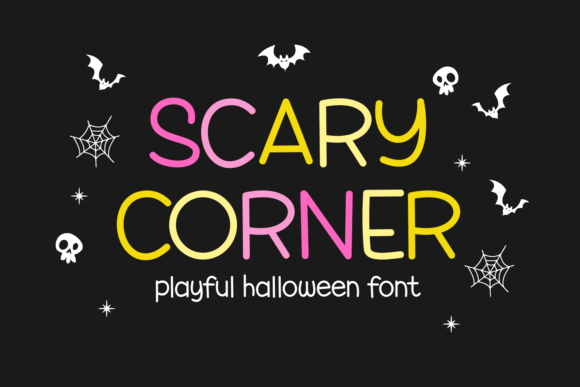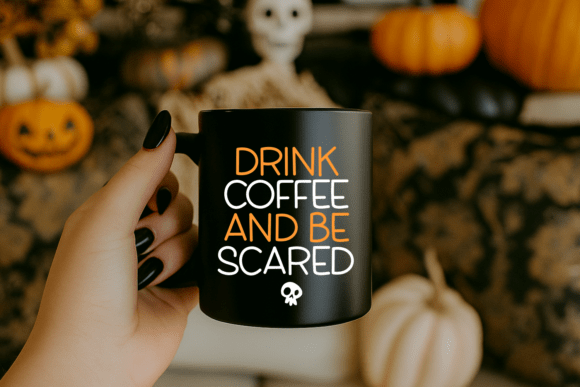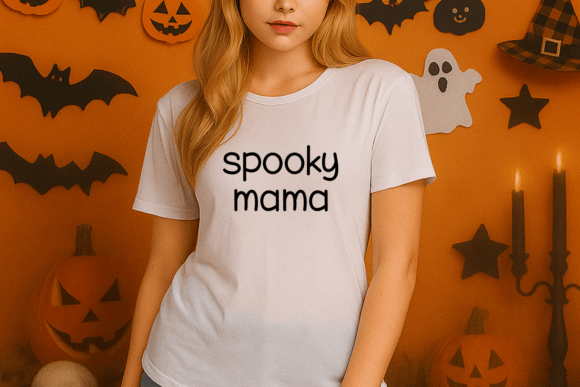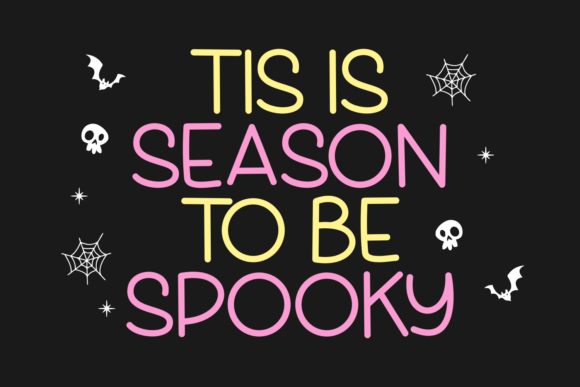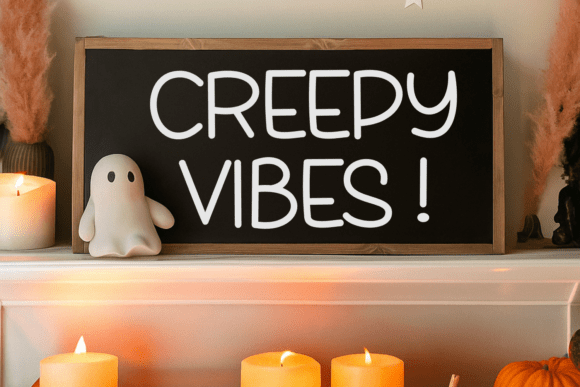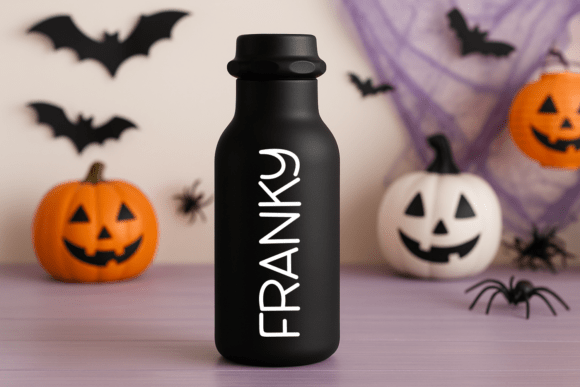
Scary Corner Font
Introduce an delightful dash of whimsy to your creative endeavors with Scary Corner, a captivatingly eccentric Halloween font. This irresistibly charming typographic offering is meticulously crafted to elevate your Halloween-themed projects, weaving in a unique amalgamation of the endearing and eerie. Dive into the fantastical allure of Halloween with Scary Corner, the perfect melding of quirky charm and seasonal merriment.